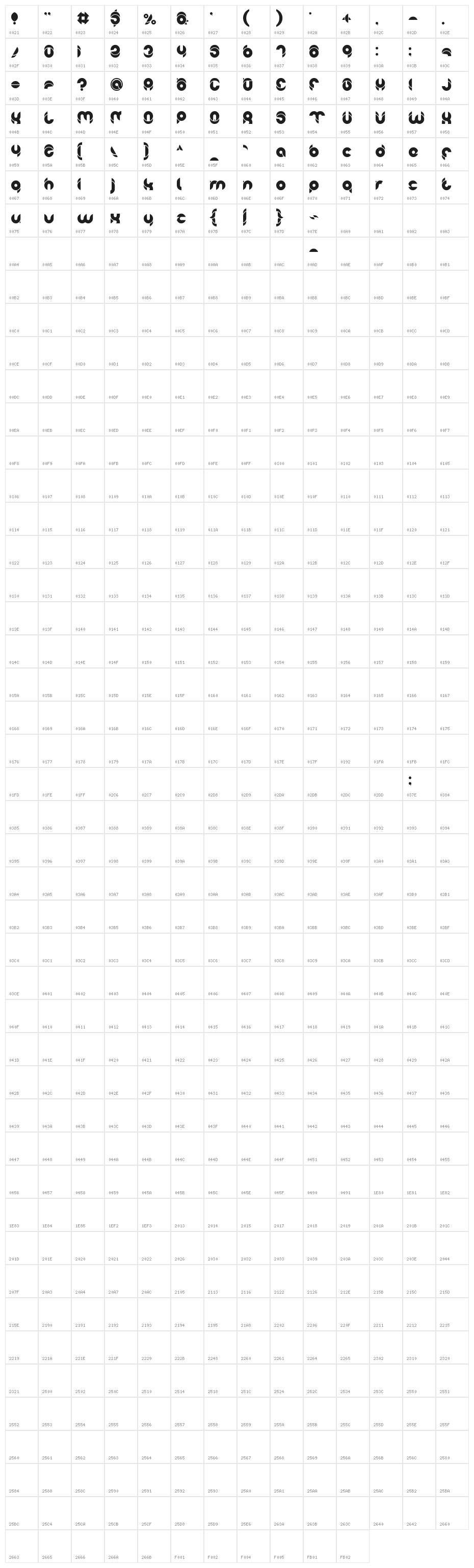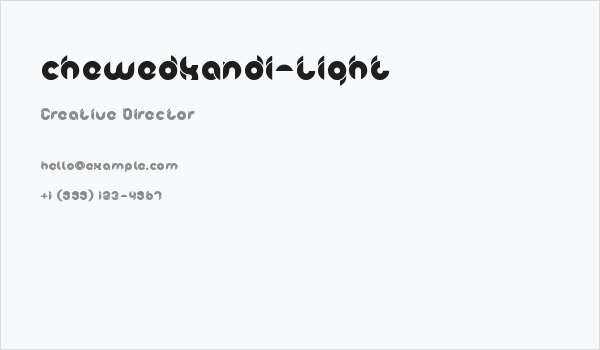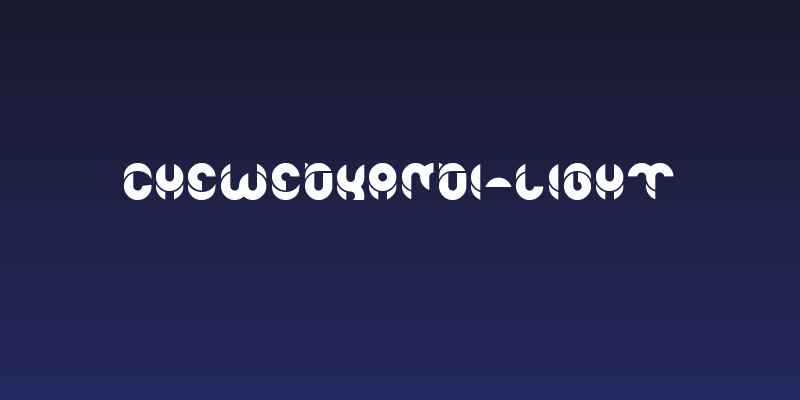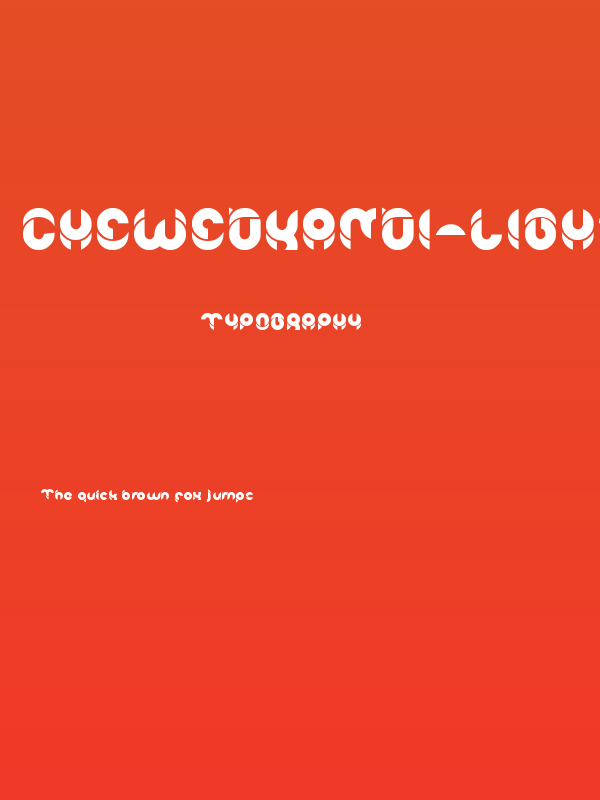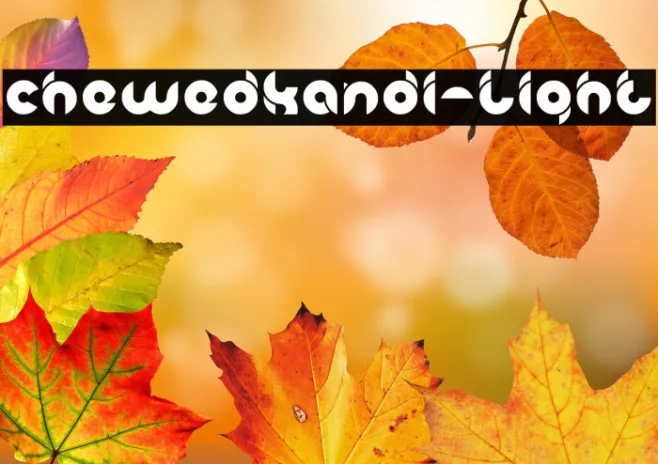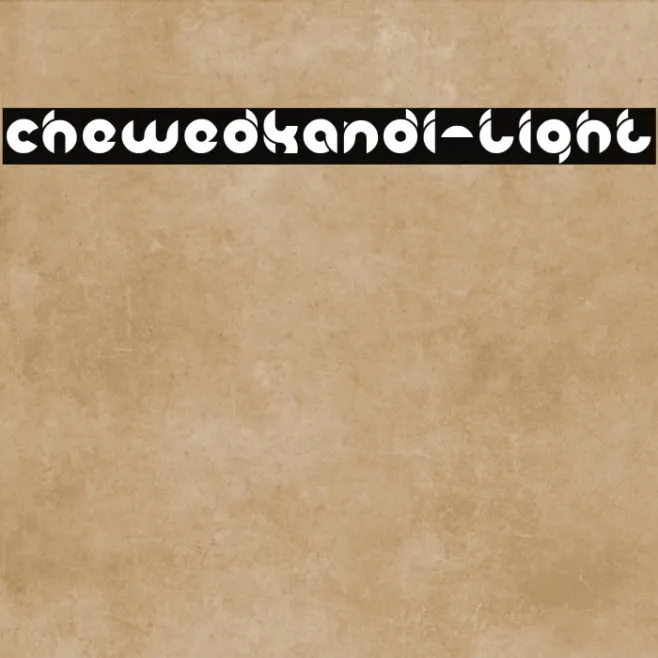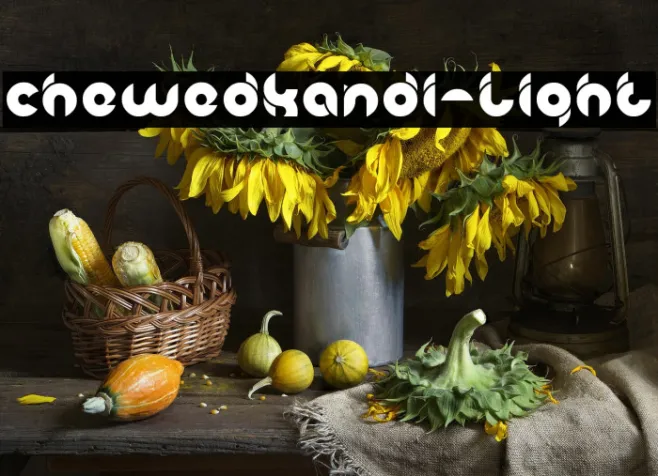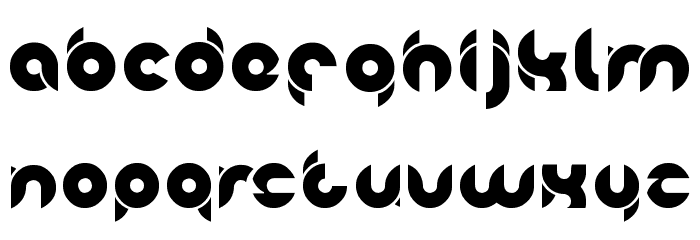
chewedkandi-Light Font
chewedkandi-Light Description
This font features a highly geometric and abstract design, characterized by its bold, circular forms and unique cut-out shapes. Each letter is crafted with a combination of solid black areas and negative space, creating a striking visual effect. The uppercase and lowercase letters maintain a consistent style, with rounded edges and a playful, modern aesthetic. The numbers and special characters follow the same design principles, ensuring a cohesive look across all glyphs. This font's distinct appearance makes it ideal for creative and artistic projects that require a bold statement.